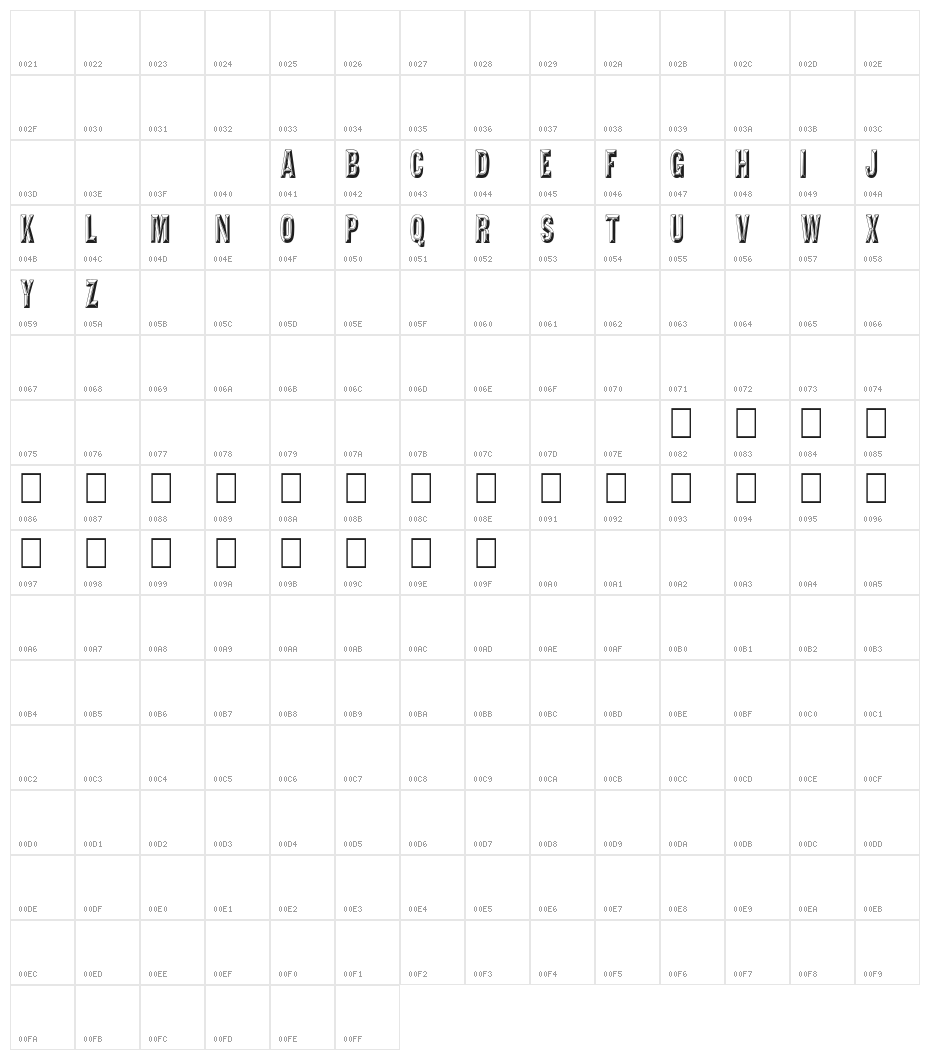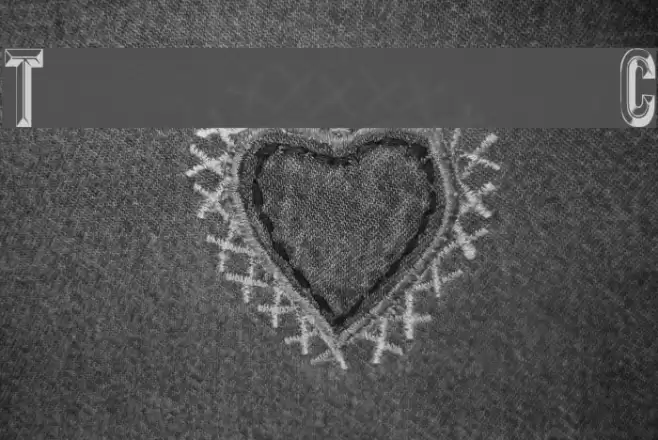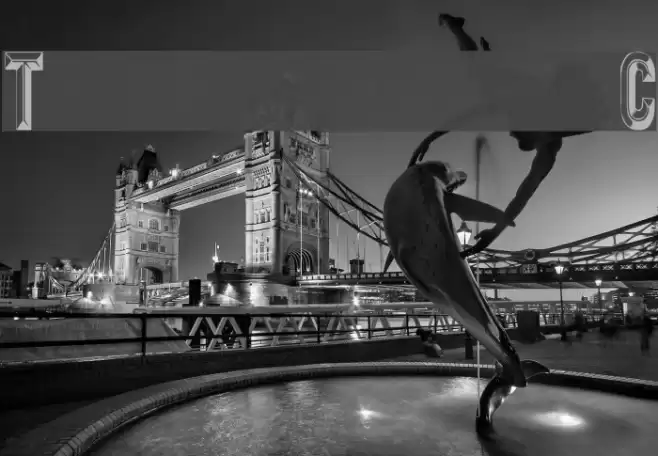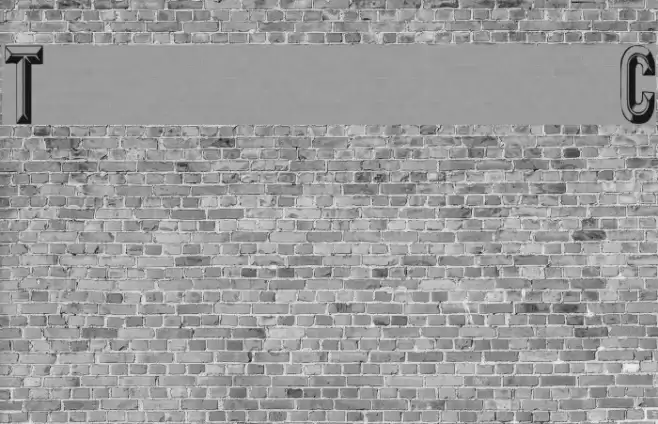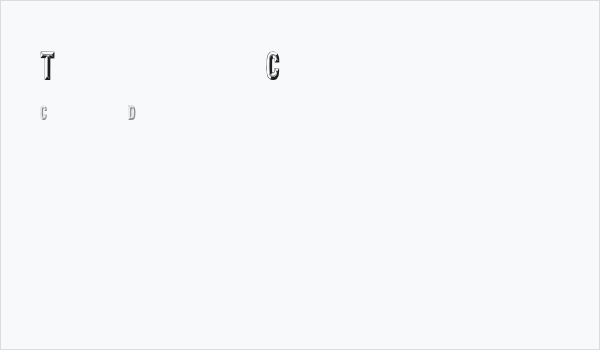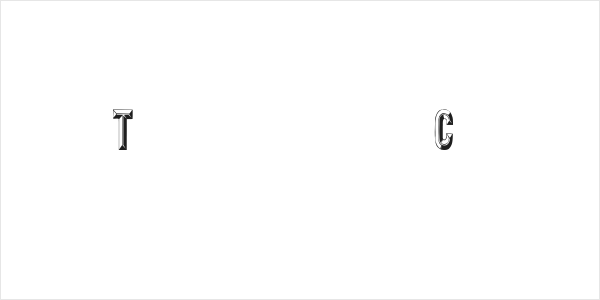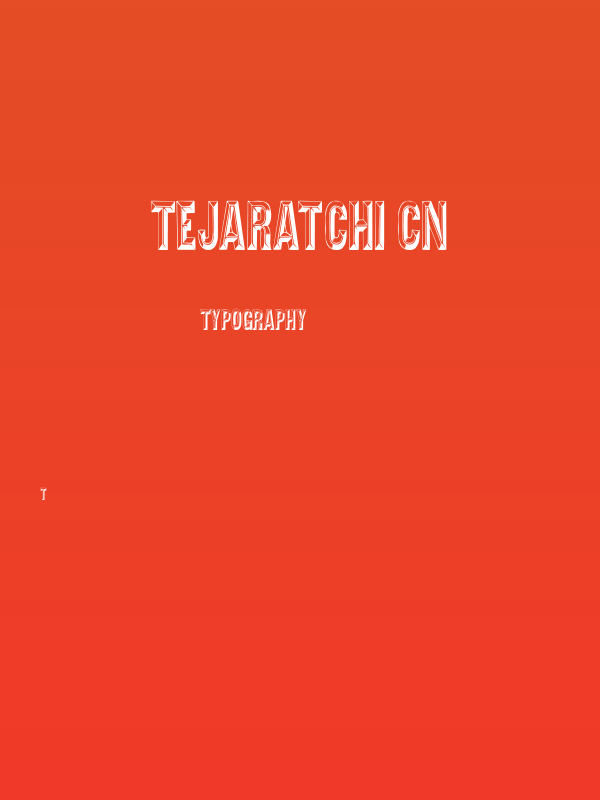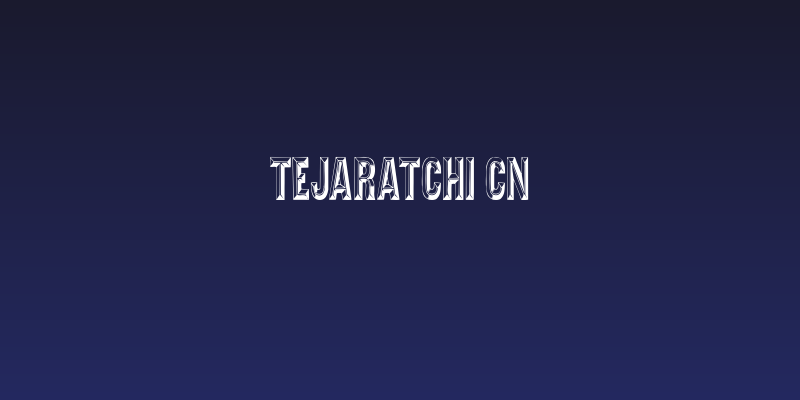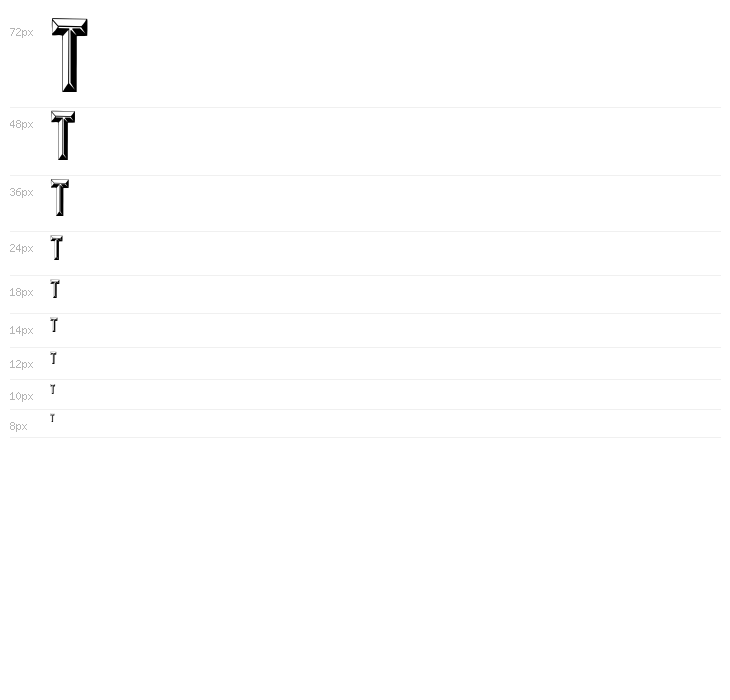
Tejaratchi Cn Font
Tejaratchi Cn Description
This font features a bold, three-dimensional design with a strong, impactful presence. The letters are capitalized and exhibit a shadow effect that gives them a sense of depth and solidity. The strokes are thick and consistent, with sharp angles and clean lines that enhance the font's dramatic appearance. The geometric style is reminiscent of vintage signage, making it ideal for projects that require a touch of nostalgia or a bold statement. The font's structure is both decorative and functional, allowing it to stand out in various design contexts.
| Proposed Projects | Ideal for posters, signage, branding, and any design requiring a bold, vintage aesthetic. |